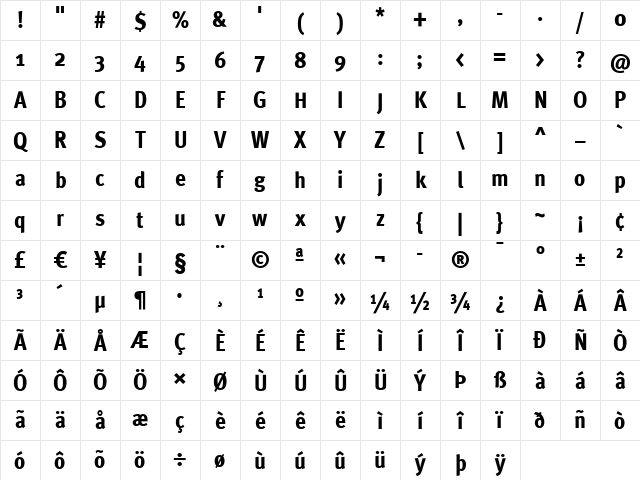
MetaCond ExtraBold Free Font
MetaCond ExtraBold
Foundry: Erik Spiekermann, Ole Schaefer, . Published by FontShop International for FontFont Release MetaCondensed is a trademark of FSI Fonts and Software GmbH
Design Context for MetaCond
MetaCond is a composed and adaptable typeface that performs quietly and consistently across a wide range of design contexts. Its bold stroke weight gives it real presence on the page. Its narrow stance lets it pack a punch even in space-constrained designs.
Who designed the MetaCond ExtraBold font?
This font was published by Erik Spiekermann, Ole Schaefer, . Published by FontShop International for FontFont Release MetaCondensed is a trademark of FSI Fonts and Software GmbH. Check the technical specs section for copyright and designer details.